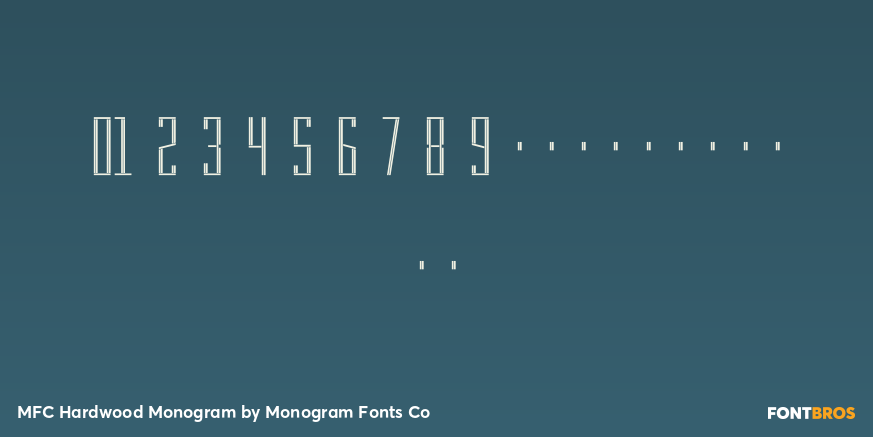
MFC Hardwood Monogram
Font Family by Monogram Fonts Co
The inspiration source for Hardwood Monogram was a unique ?building block? design that was originally formatted as a stacking cameo monogram. This pattern has been expanded to recreate not only the original stacking cameo style, but also the traditional smallcaps & Capitals monogram format. A bold variation has also been created for those that require a stronger presence.